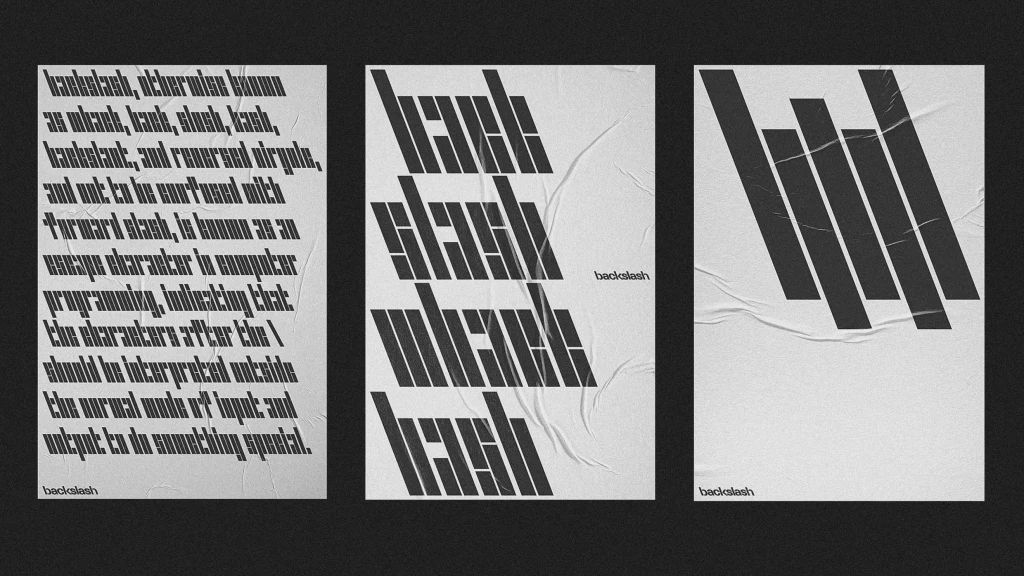
This brilliant font is made entirely out of backslashes
A new branding system by Cotton Design for Cornell Tech’s art organization uses a single shape.